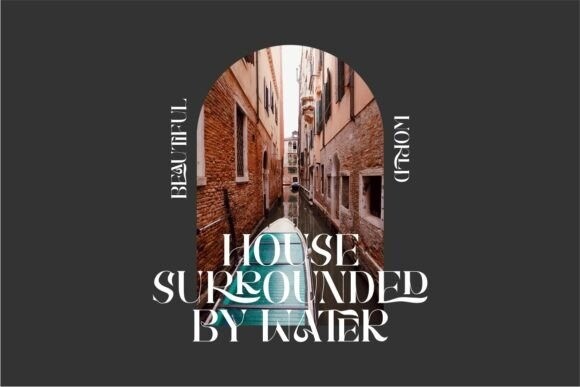
Brays Font
Brays is a unique serif font to comply with the actual market demand.
The Brays font is a font with many ligatures that is very unique and sought after and comes with a stylish style to become a market favorite. This font was kept looking elegant, classy, ​​easy to read, stylish, attractive, and easy to use.
Brays Font is a great choice for beauty brands, magazines, travel, newspapers, books, brand names, branding, quotes, album covers, and other projects. The Brays font is here to take the quality of your designs to a higher level.